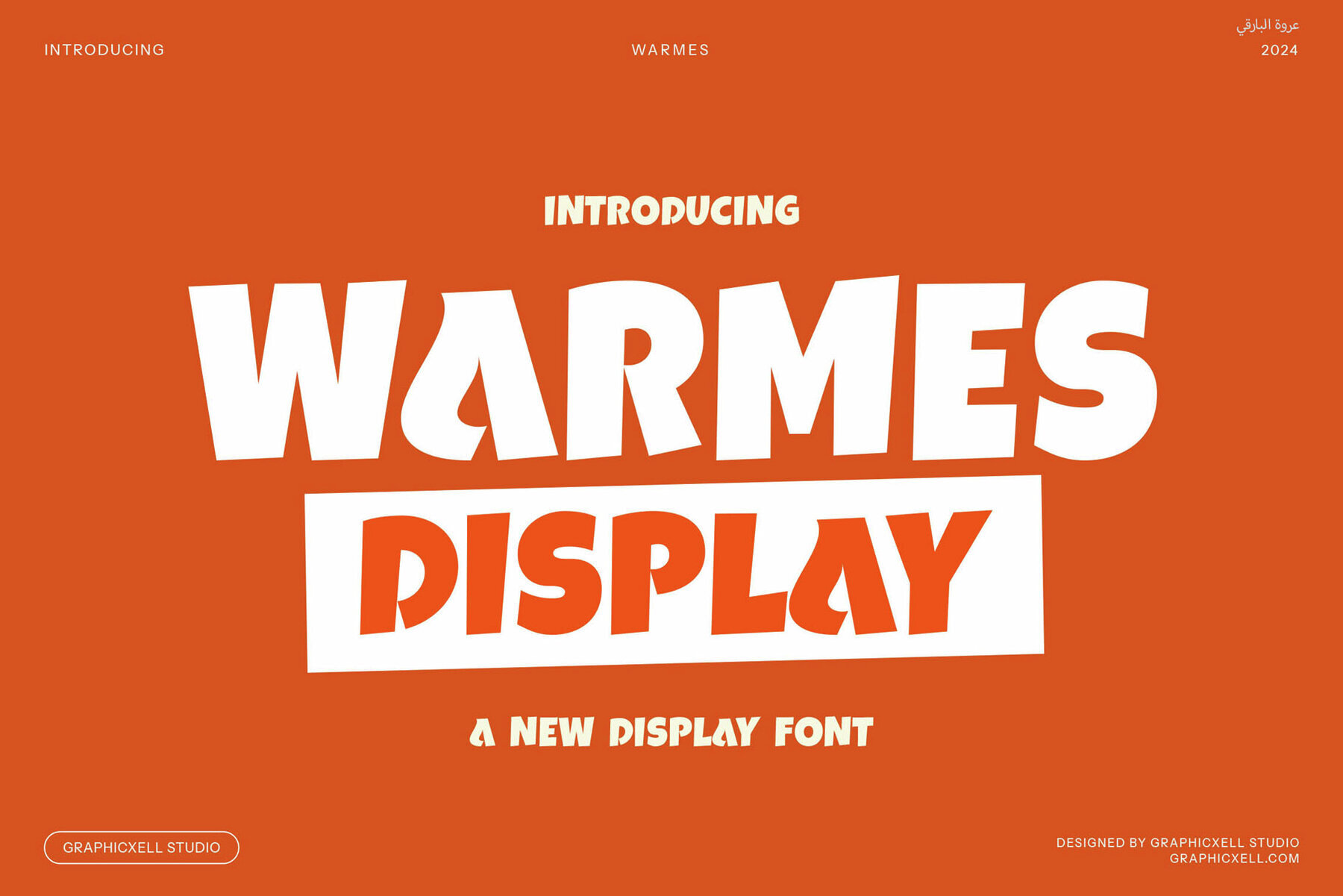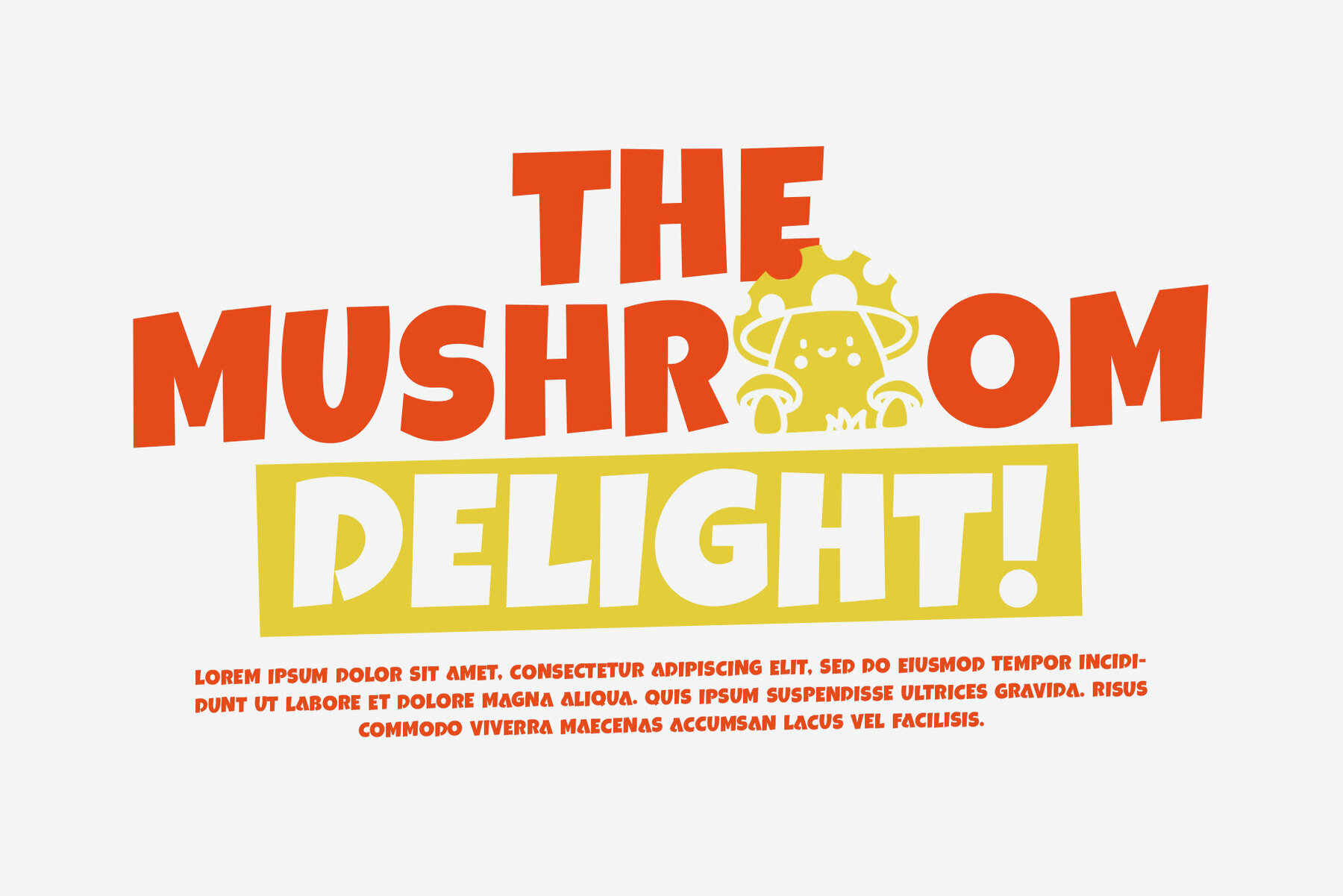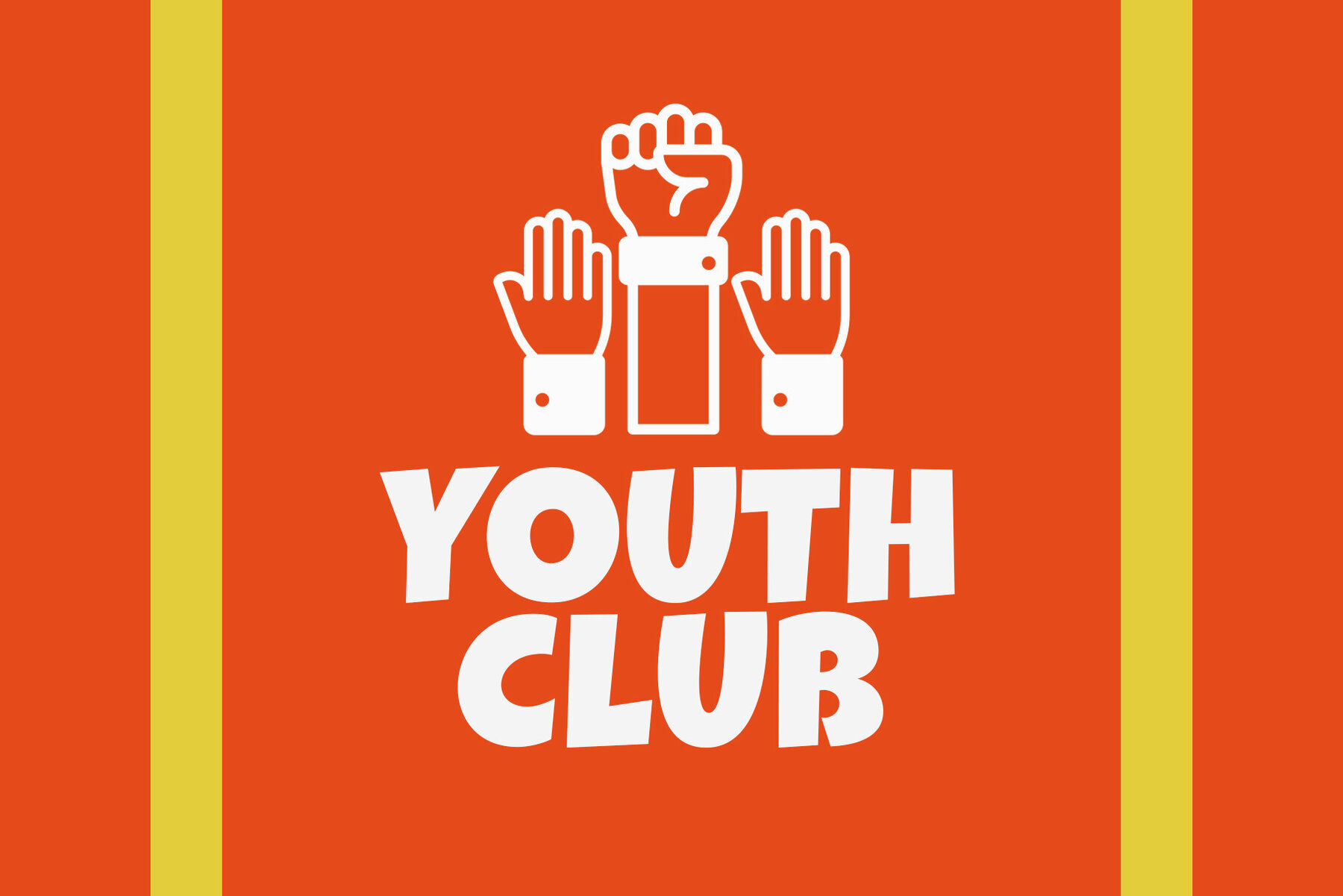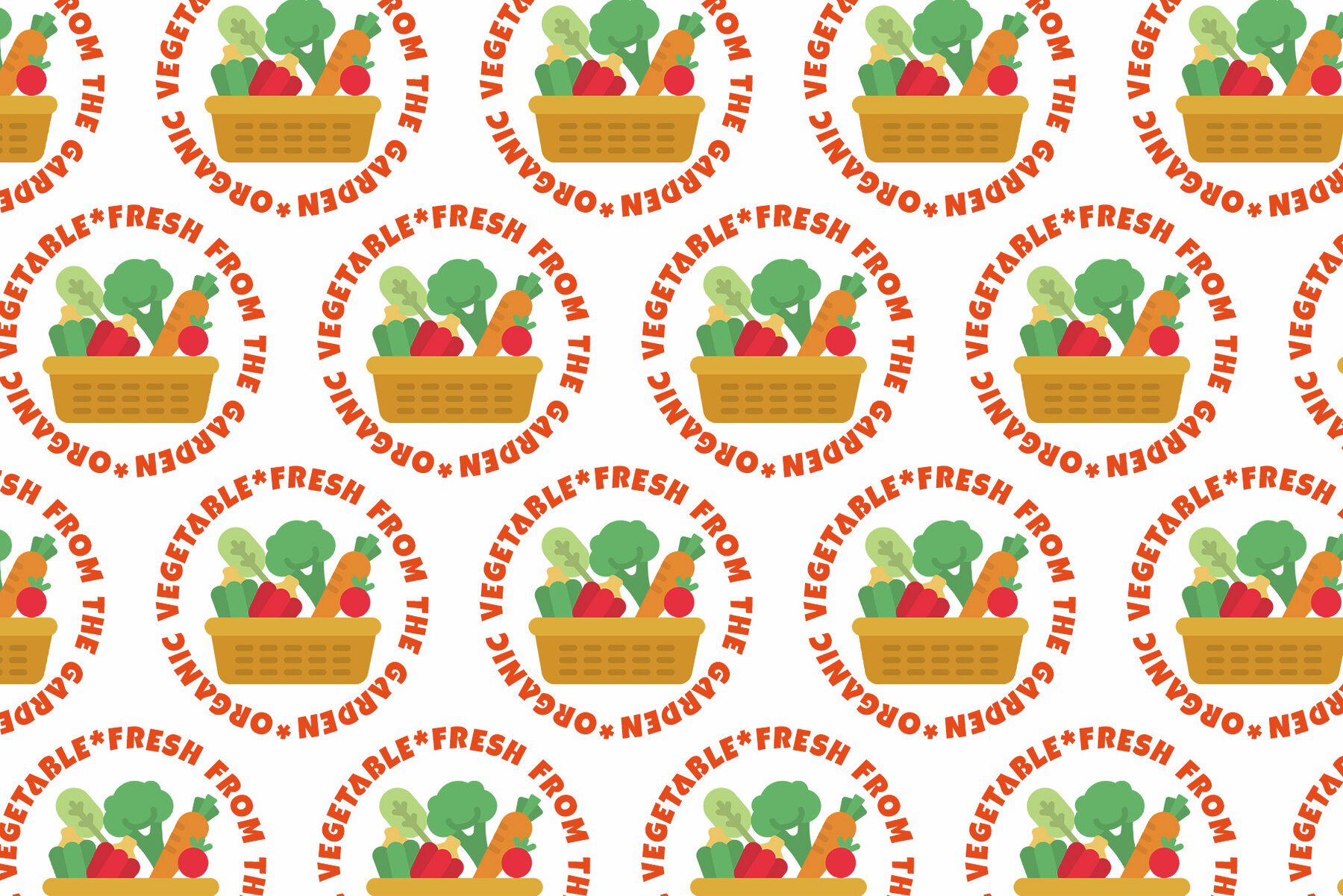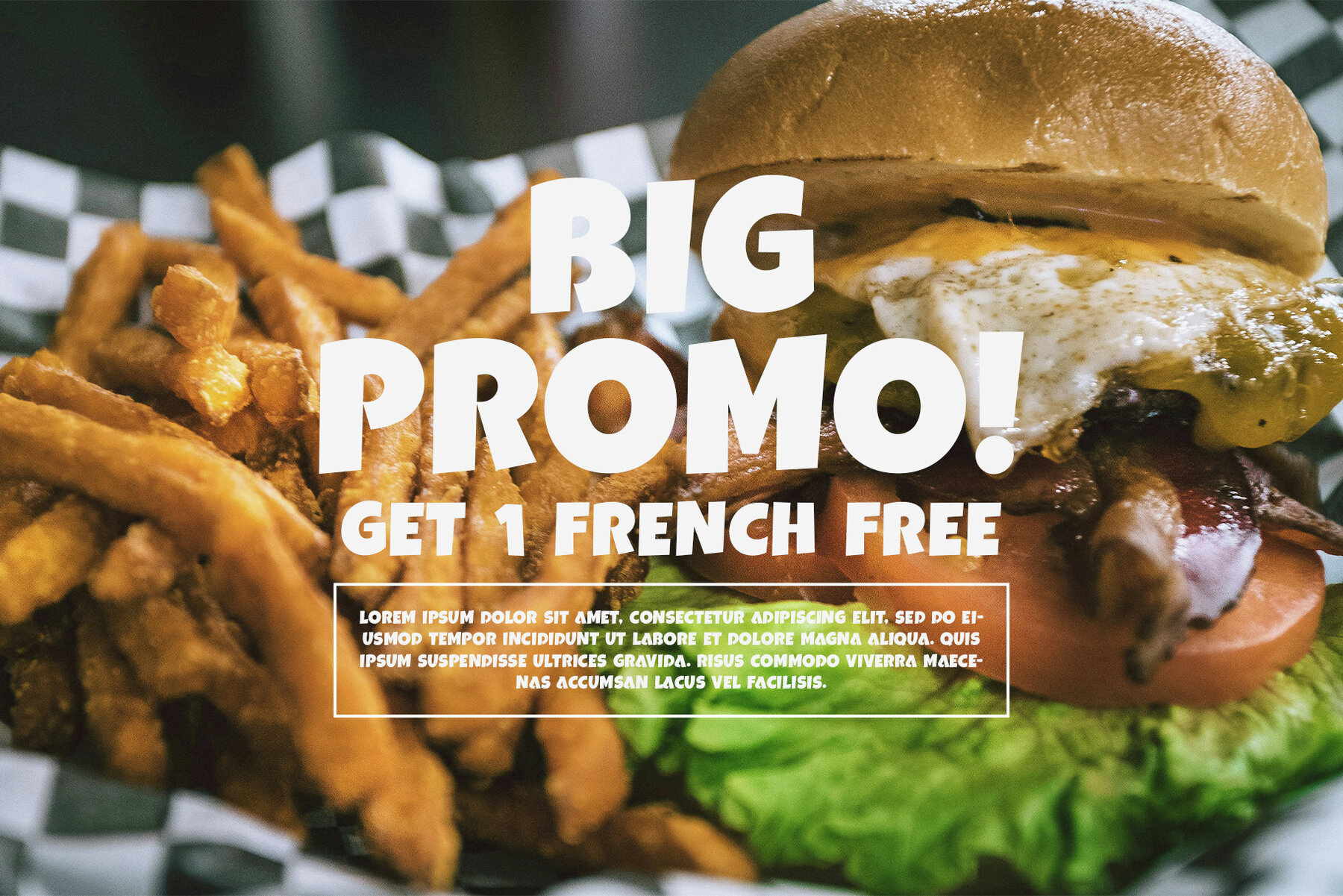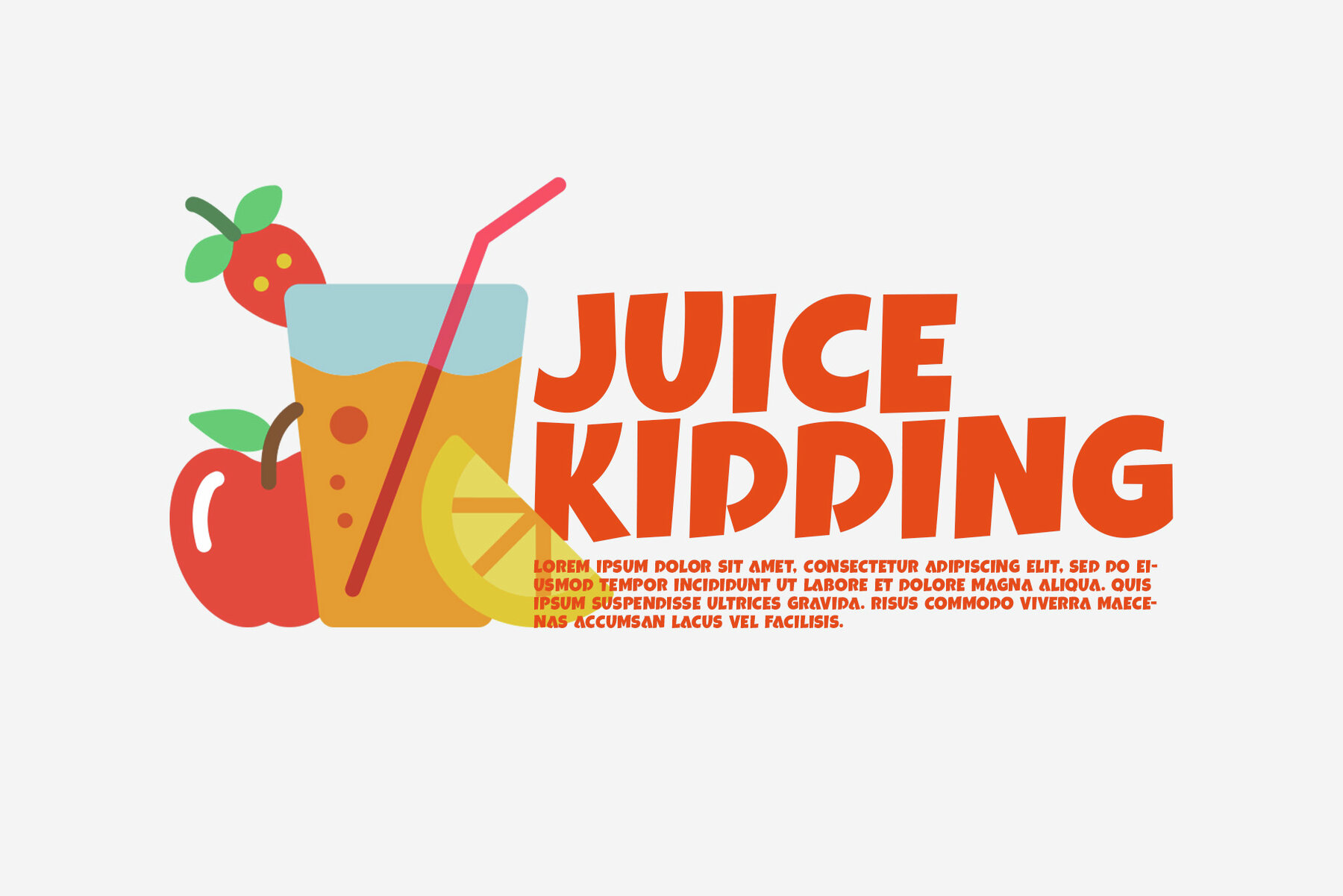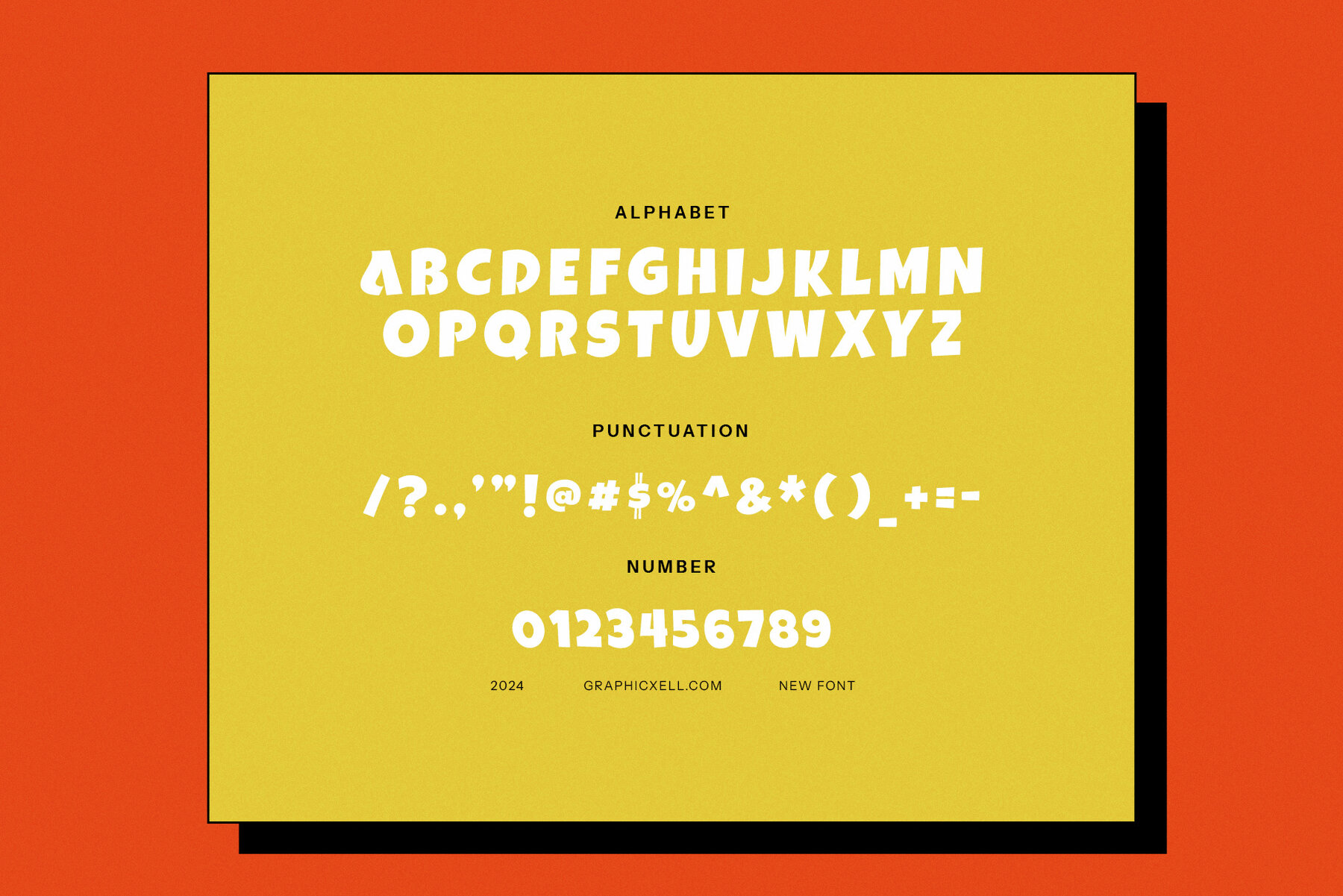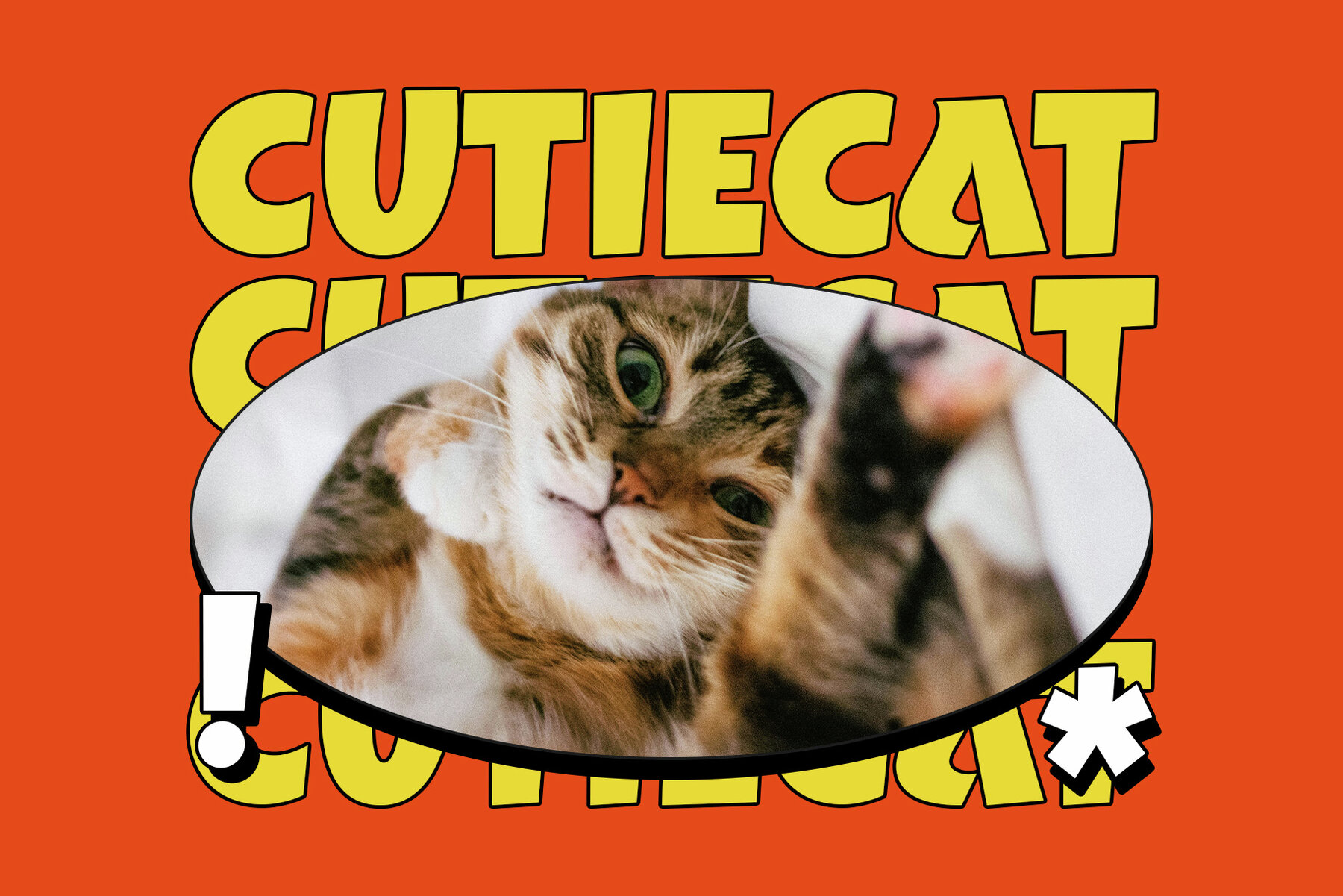
Warmes Font
Warmes
Introducing Warmes, a modern and playful display font that infuses fresh energy with a touch of retro nostalgia into any design endeavor. Its distinctive, fun shapes and clean lines seamlessly blend modern design sensibilities with vintage charm. Warmes is the perfect choice for projects that stand out with personality and style. Ideal for logos and branding, this font offers a unique look that enhances any brand identity. Its bold, geometric shapes and lively character are perfect for creating memorable, high-impact logos suitable for various audiences, from trendy food brands to contemporary boutiques and innovative product lines.
Warmes is versatile across both digital and print mediums, making websites feel fresh and engaging with its sense of playfulness and energy. In magazine layouts, it offers striking headline possibilities that draw the eye, while in advertising, its modern aesthetic captures attention on product packaging and social media campaigns. Whether your project involves food, fashion, or lifestyle, Warmes brings a vibrant and approachable feel. With its retro-inspired shapes and modern appeal, Warmes is an excellent choice for a wide array of creative endeavors, including branding, advertising, and editorial design. Let Warmes bring energy, creativity, and unforgettable style to your next project.